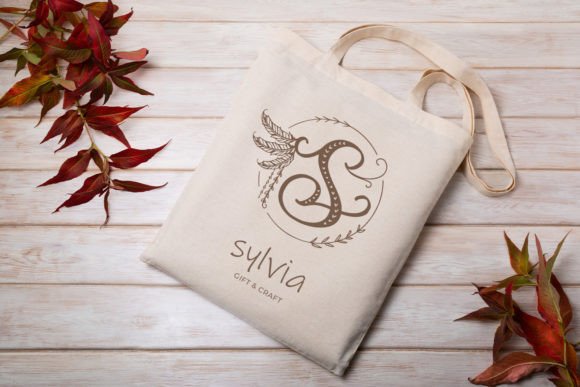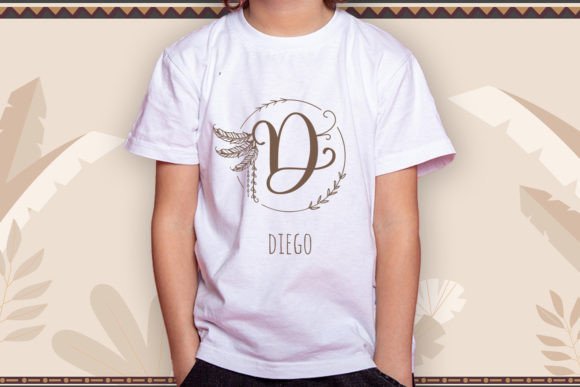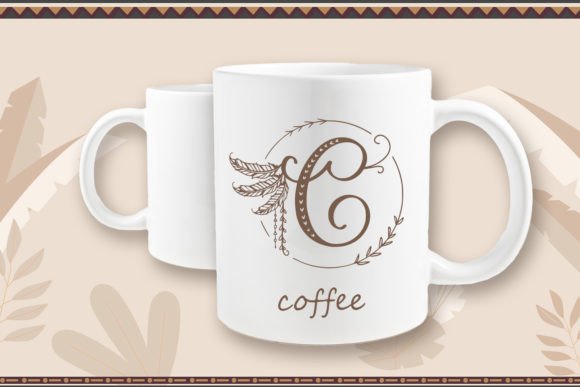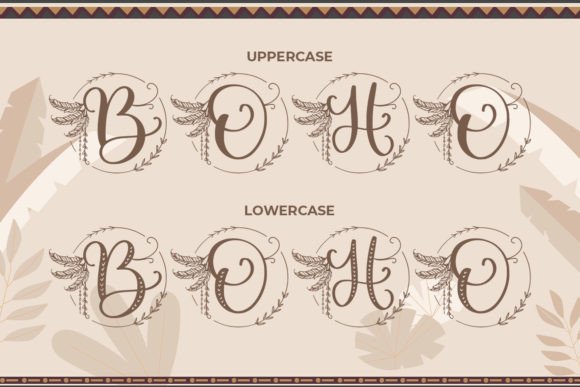
The Perfect Blend of Elegance and Whimsy: Discovering the Boho Font
Have you ever found yourself staring at a blank page, waiting for the perfect font to bring your design to life? That’s exactly what happened to me when I stumbled upon the enchanting Boho Font. Its intricate curves and flowing lines immediately caught my attention, and I knew I had to learn more about this captivating typeface.
Boho Font is a stunning monogram script font that exudes charm and sophistication. Its unique style is perfect for adding a personal touch to any project, from wedding invitations to blog posts. As a designer, I can appreciate the value of having a versatile font like Boho at my fingertips. Whether you’re a seasoned pro or just starting out, the Boho Font is an essential tool in your design arsenal.
Key Features of Boho Font
- Unique Characteristics: Boho Font features a unique blend of vintage and bohemian elements, with intricate details and ornaments that add a touch of elegance and sophistication.
Designer Review: Boho Font
As a designer, I was excited to dive into the Boho Font, a font meant to evoke the free-spirited, eclectic vibe of the bohemian lifestyle. ✨ Overall, I think the font is a great addition to any designer’s toolkit, offering a unique blend of elegance and playfulness.
- ✨ The font’s irregularity and flair for the dramatic are reminiscent of hand-painted signs and vintage posters.
- ✨ The letterforms are well-balanced, making them suitable for use in a wide range of applications, from headlines to body text.
- ✨ The font’s unique character set is perfect for creating eye-catching titles and headings.
However, I do have a few concerns. ⚠️ The font’s irregularities can sometimes make it difficult to read, especially in smaller sizes or when used in dense text blocks. Additionally, the font’s unique character set may not be suitable for use in formal or professional applications.
Overall, I think the Boho Font is a great choice for designers looking to add a touch of whimsy and personality to their work. With its unique blend of elegance and playfulness, it’s perfect for creative projects, editorial design, and more. Just be sure to use it judiciously, and with a clear understanding of its limitations.
The Boho Font is perfect for:
- Designing bohemian-inspired graphics and posters
- Creating whimsical and playful text overlays
- Adding a touch of elegance and sophistication to your designs
Remember to pair the Boho Font with other complementary fonts and design elements to achieve a cohesive look.